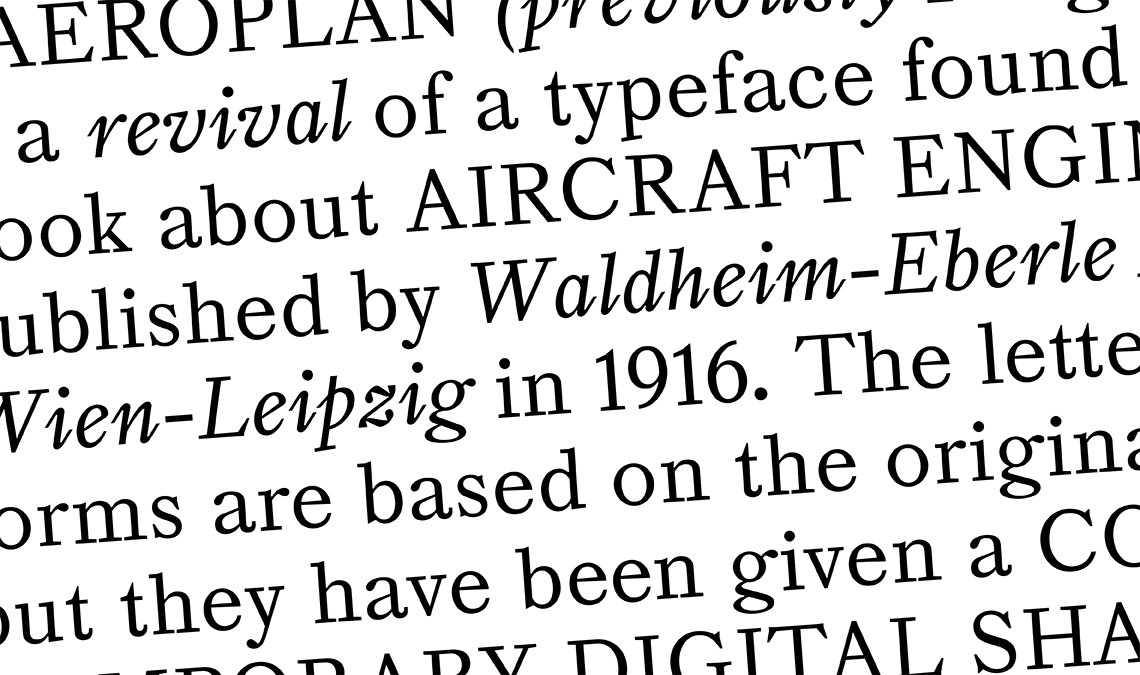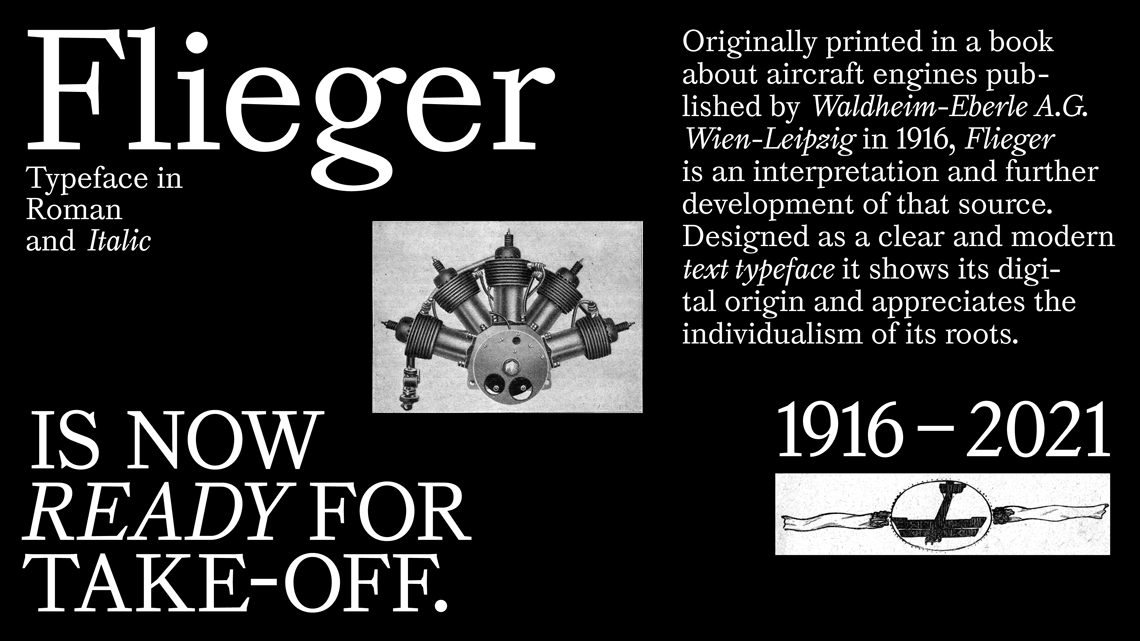
We are happy to announce the winner of the Gerard Unger Scholarship 2021: the Aeroplan (previously Flieger) typeface by Nina Faulhaber, developed while studying BA Communication Design at the Augsburg University of Applied Science (Germany) under the tutoring of Prof. Maurice Göldner.
Winner: Aeroplan, by Nina Faulhaber.
Aeroplan
Nina Faulhaber’s Aeroplan (previously Flieger) is a revival of a typeface found in a book about aircraft engines published by Waldheim-Eberle A.G. Wien-Leipzig in 1916. While in the original printed book the typeface was slightly irregular and populated with unusual details, Nina’s digital version is an open interpretation rather than a copy. The letterforms are based on the original, but they have been given a contemporary digital sharpness and more regularity in the forms and contrasts. Aeroplan is a small type family that includes upright and italic styles. We are looking forward to start working with Nina and see how Aeroplan can be expanded and taken to the next level during the internship.
Nina is currently studying communication design with a focus on type design in Augsburg, Germany. She is fascinated by the interplay between precise craftspersonship and artistic freedom, which she practices both in her work as a type designer and as a wood sculptor.
Nina Faulhaber
For Veronika Burian, co-founder of TypeTogether, “Aeroplan reveals its individualistic character only at second sight. Its certain awkwardness draws you in and makes you look deeper to then find little enchanting details. Aeroplan’s attraction is this moment of unease mixed with a sense of familiarity. The italic especially emits a stark rhythm that immediately feels natural.”
In the words of José Scaglione, co-founder of TypeTogether, “Aeroplan is the bridge where contemporary and vintage design meet, and they do so beautifully. Nina’s typeface produces blocks of text that look even and pleasantly readable, so it is a real surprise to see how daring, even intrepid, the lettershapes are when you zoom in on them.”
The TypeTogether team has selected the main scholarship winner and awarded merits to eight other outstanding typeface projects: Aimé by Fer Cozzi, Cemita by Miguel Angel Contreras Cruz, Didonist by Sergei Rasskazov, Glossa by Emerson Eller, Letra Brasileira by Sandro Fetter, Nausea by Fred Wiltshire, Ploquine by Emma Marichal, and Tiffin by Salomi Desai. José and Veronika will give each merit winner an exclusive feedback session on their project, a merit certificate, and a social media badge.
Merit: Aimé by Fer Cozzi.
Aimé, by Fer Cozzi
The Aimé type family explores the idea of sculpting letterforms. The result is a mix of a rustic feel and expressive shapes. The project studies the morphological peculiarities of letters and diacritics present in languages recognized in the Argentine territory. The final goal was to demonstrate certain characteristics of phonetics in the lettershapes and their impact in the paragraph’s textures and rhythm. Designed by Fer Cozzi in 2018 and redeveloped during the Practica program in 2020. Tutors: Nicole Dotin and Sol Matas.
Fer Cozzi is an independent type designer born in Buenos Aires, Argentina. She obtained her diploma at the University of Buenos Aires, and later completed the postgraduate career in Type Design at the same university, where she also works as assistant professor. Designer, talkative, and passionate about letters, some of her work has been selected for renowned typography exhibitions and competitions, such as Tipos Latinos, Pangramme, and TDC.
Merit: Cemita by Miguel Angel Contreras Cruz.
Cemita, by Miguel Angel Contreras Cruz
Cemita is a type family inspired by traditional food from Puebla México — a cemita poblana, like a powerful and magical sandwich that can have different fillings. Cemita brings those different flavours into the family: sans, serif, rounded, and script. Designed by Miguel Angel Contreras Cruz at the Principles of Typeface Design: Display Type class at  Tutor: Juan Villanueva.
Miguel graduated from the graphic design faculty of the Benemérita Universidad Autónoma de Puebla and was selected in the biennial of Tipos Latinos in 2016. He is a member of the Mexican collectives Letter INC. and Letrástica, oriented to activities around calligraphy, typography, and lettering, where he teaches, designs fonts, and organises meetings. Miguel received a BIPOC fund for Principles of Typeface Design: Display Type class through  with Juan Villanueva and a BIPOC Scholarship for Python Scripting for Type Design with Peter Nowell.
Merit: Didonist by Seryozha Rasskazov.
Didonist, by Seryozha Rasskazov
Didonist is a stencil variable font that combines the logic of stencil construction with Didot-style proportions and shapes. The main purpose of the optical axis is to make the font parameters and contrast change according to the size of the letters and to a minimum stroke thickness of 1mm (the minimum technically possible for a hand-made stencil). Designed by Seryozha Rasskazov during the Master Type Design 2020–2022, ECAL. Tutor: Kai Bernau.